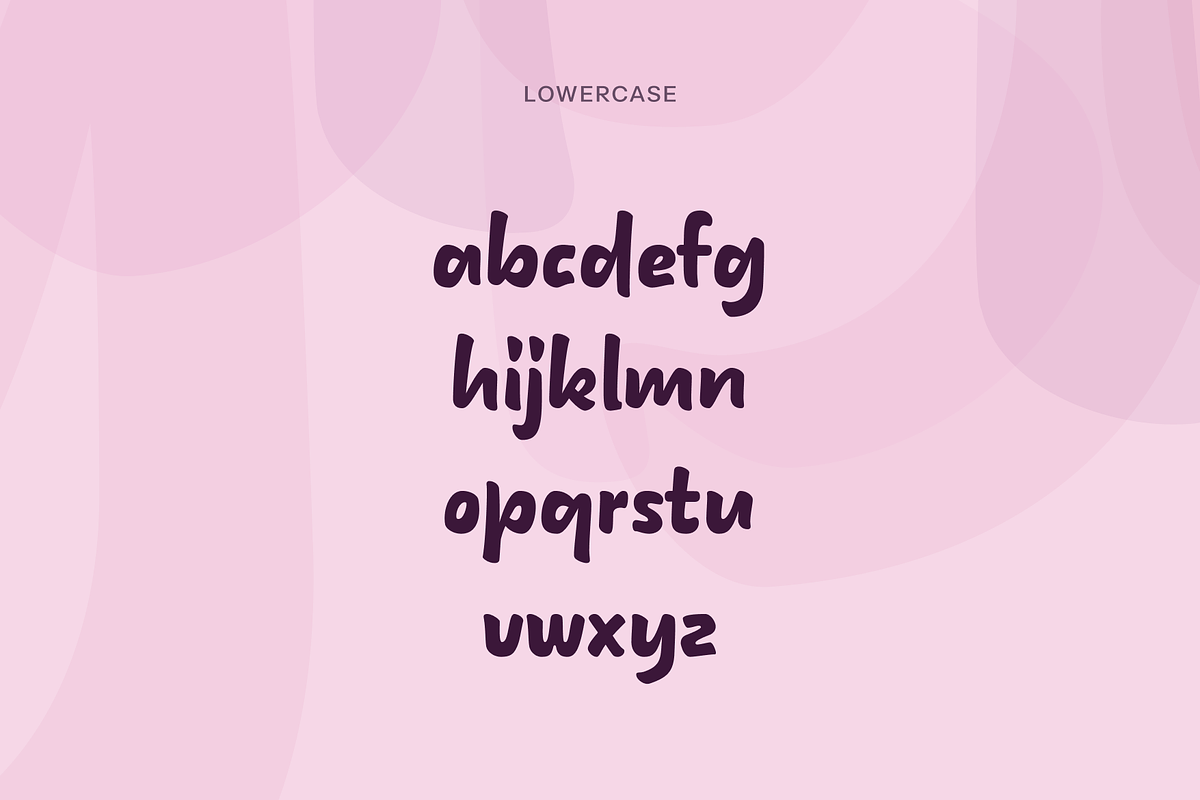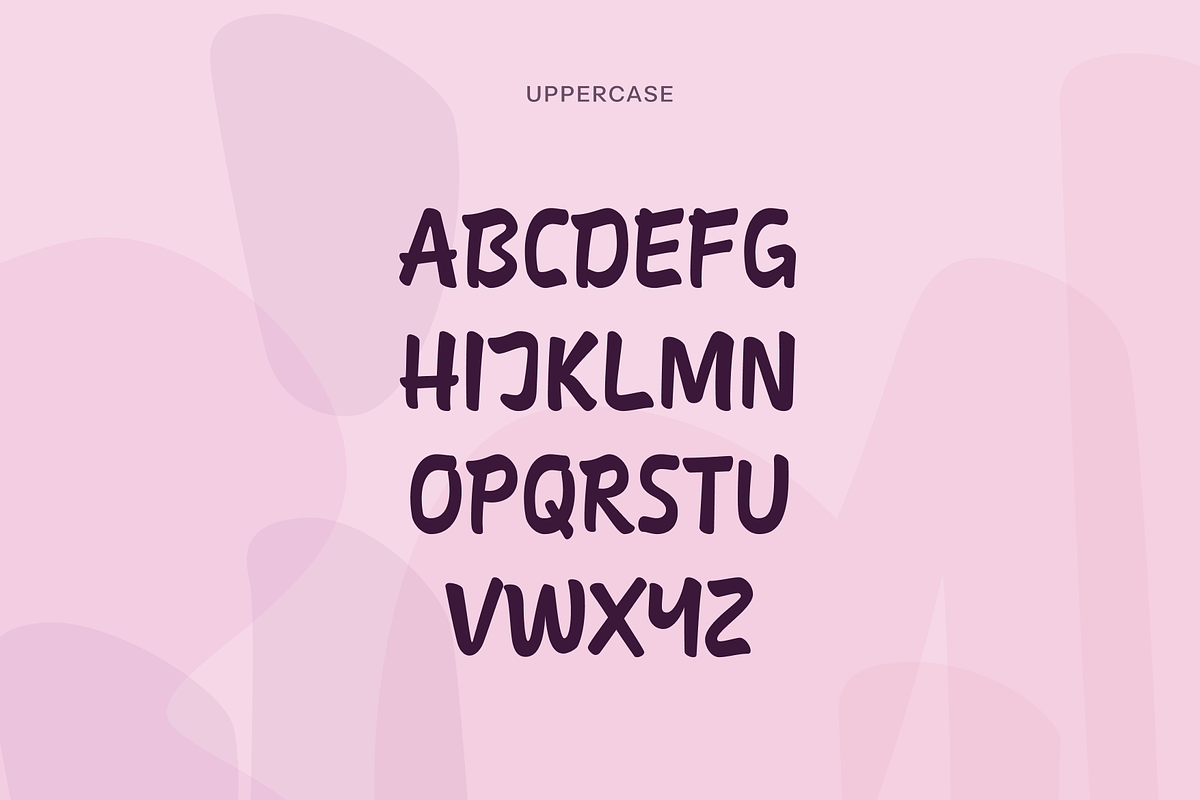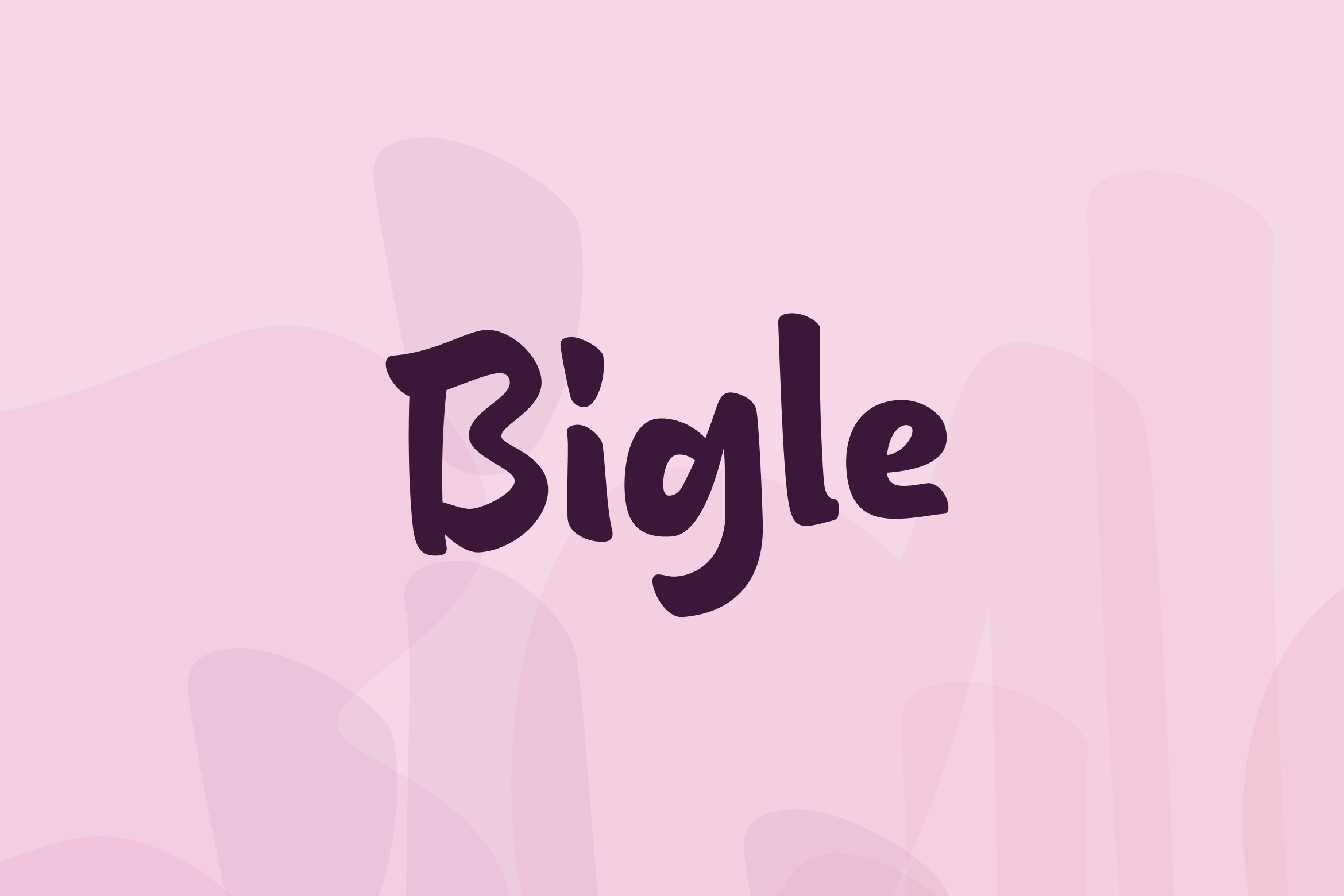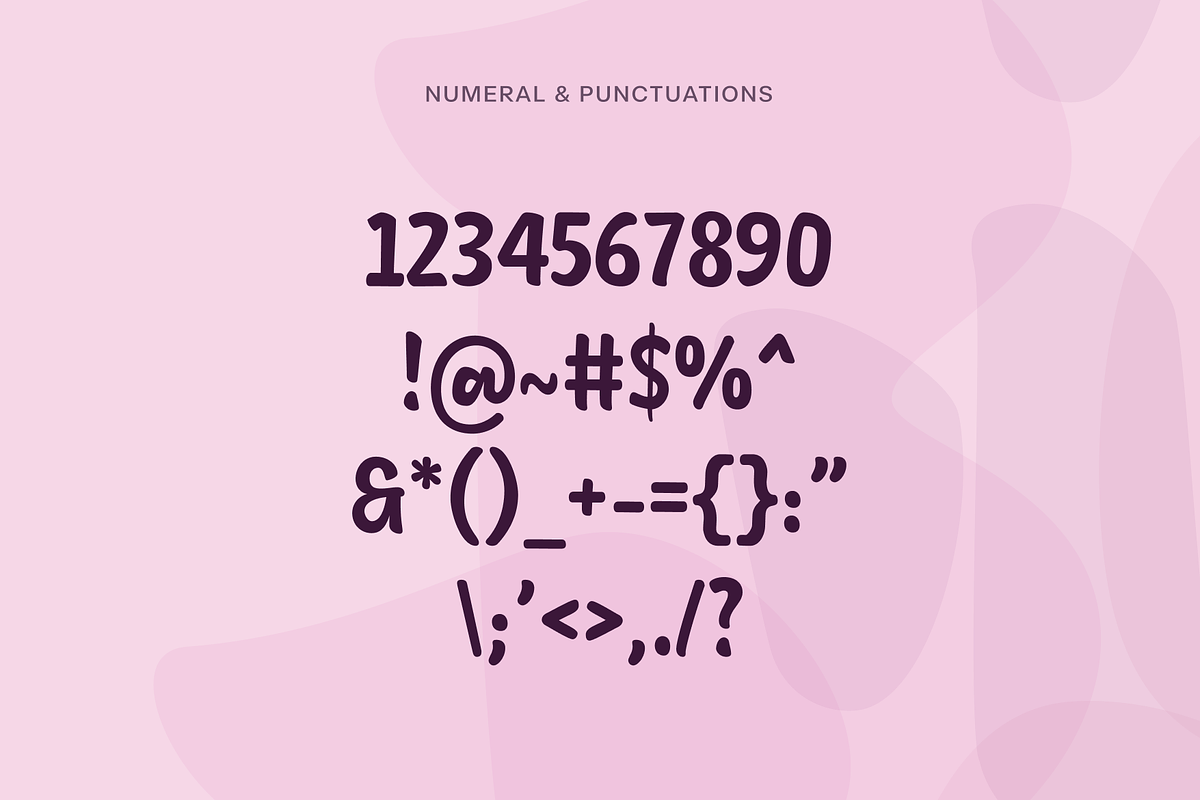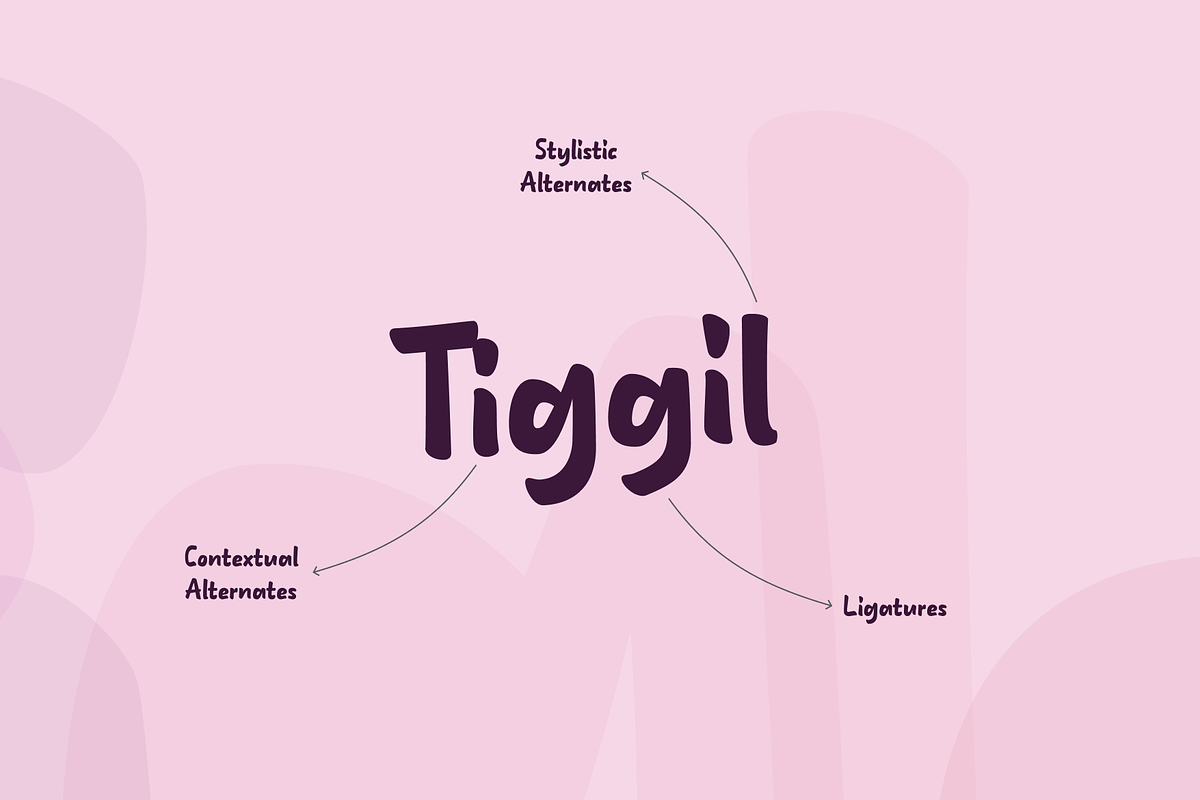
Bigle - Casual Typeface
Bigle is a whimsically crafted typeface that dances effortlessly between the worlds of handwriting and casual lettering. Its pretty strokes mimic the fluidity of a paintbrush, lending a playful and decorative touch to any project. With its casual script style and rounded edges, Bigle embodies a contemporary yet fun essence, perfect for logotypes, posters, and headings that seek a touch of personality. Whether it's for casual contemporary designs or adding a playful flair to comics, this font brings a sense of joy and casual elegance to your creative endeavors.
Embrace Casual Chic and Playful Elegance with Bigle Typeface!